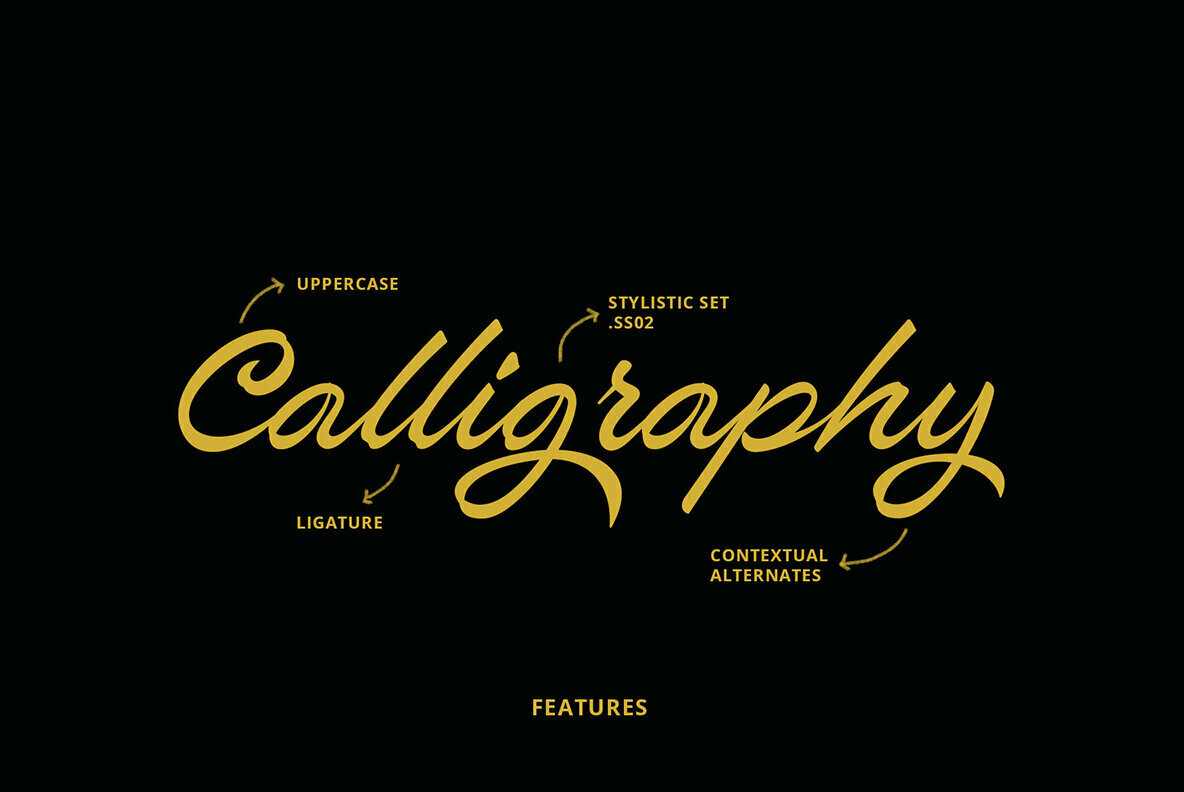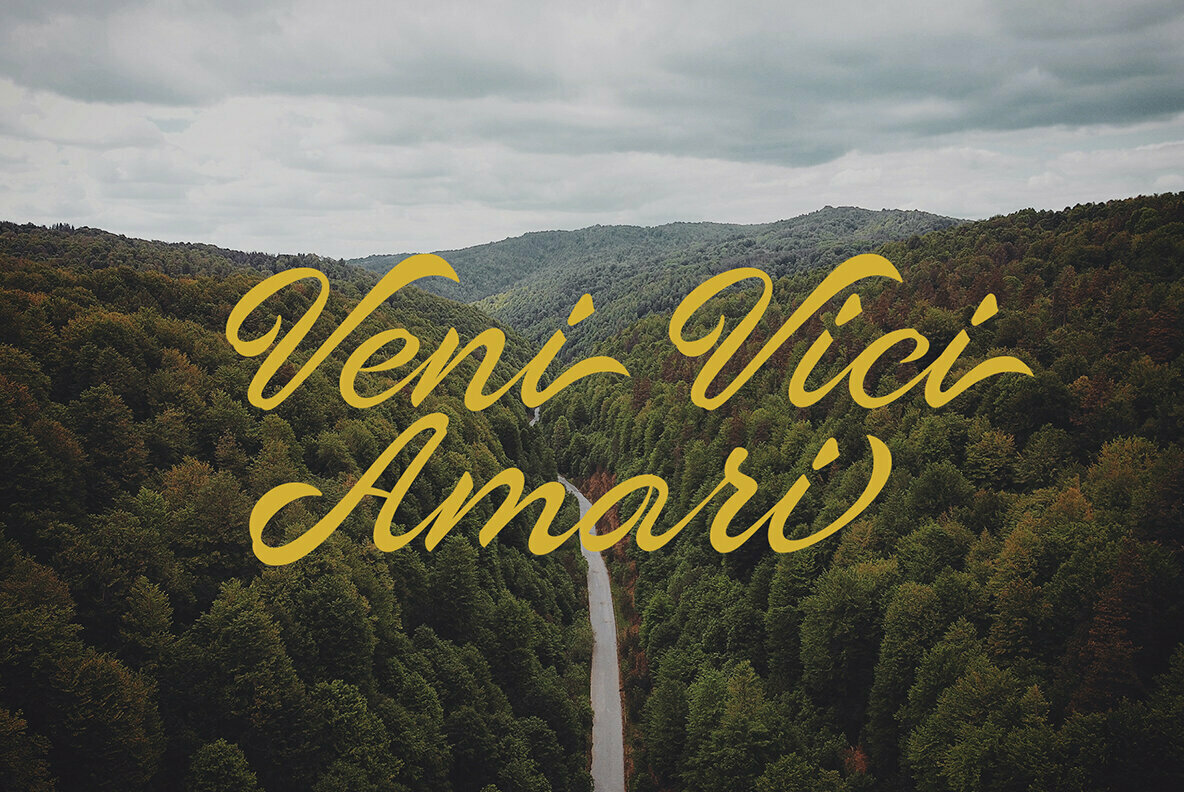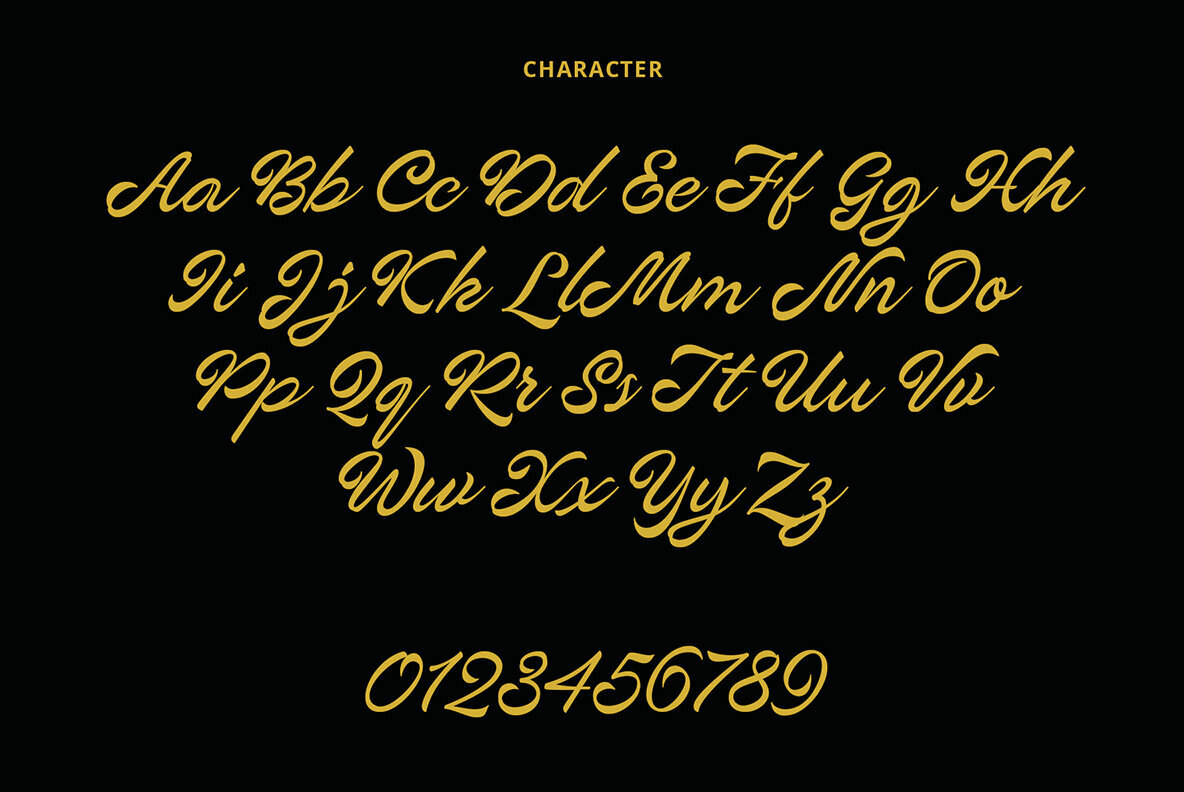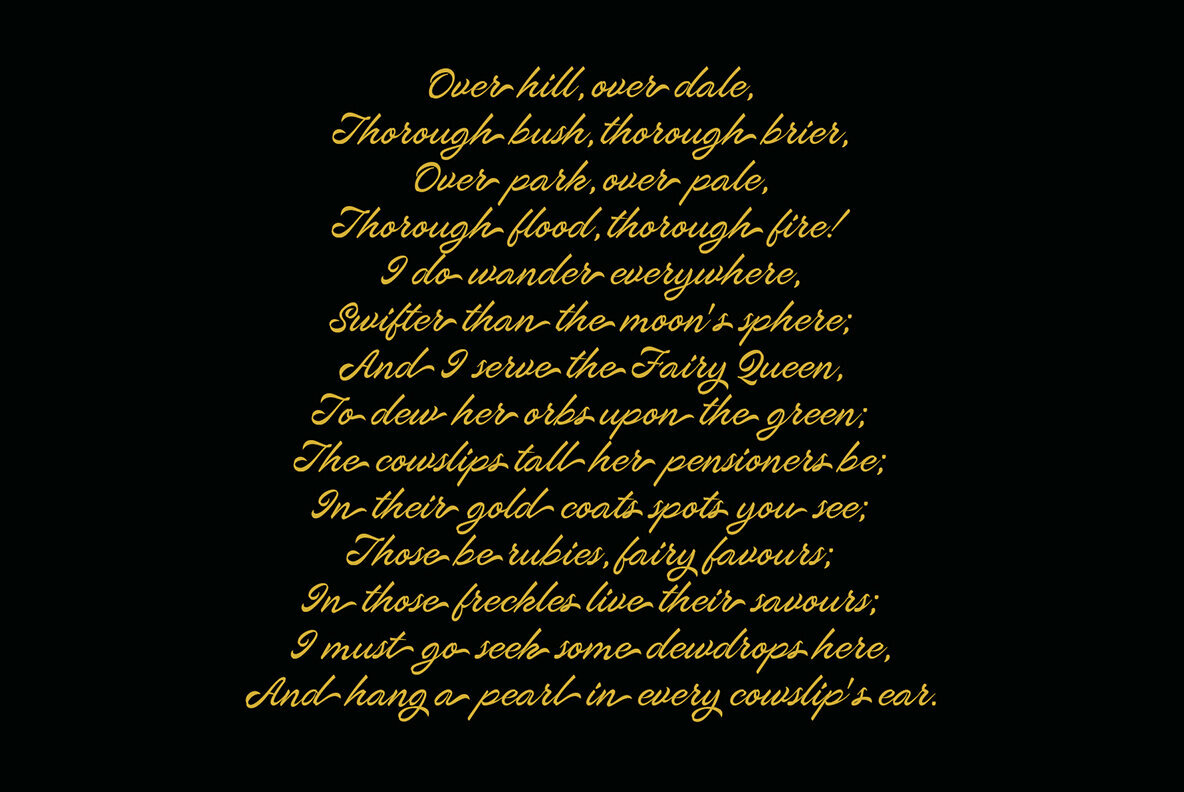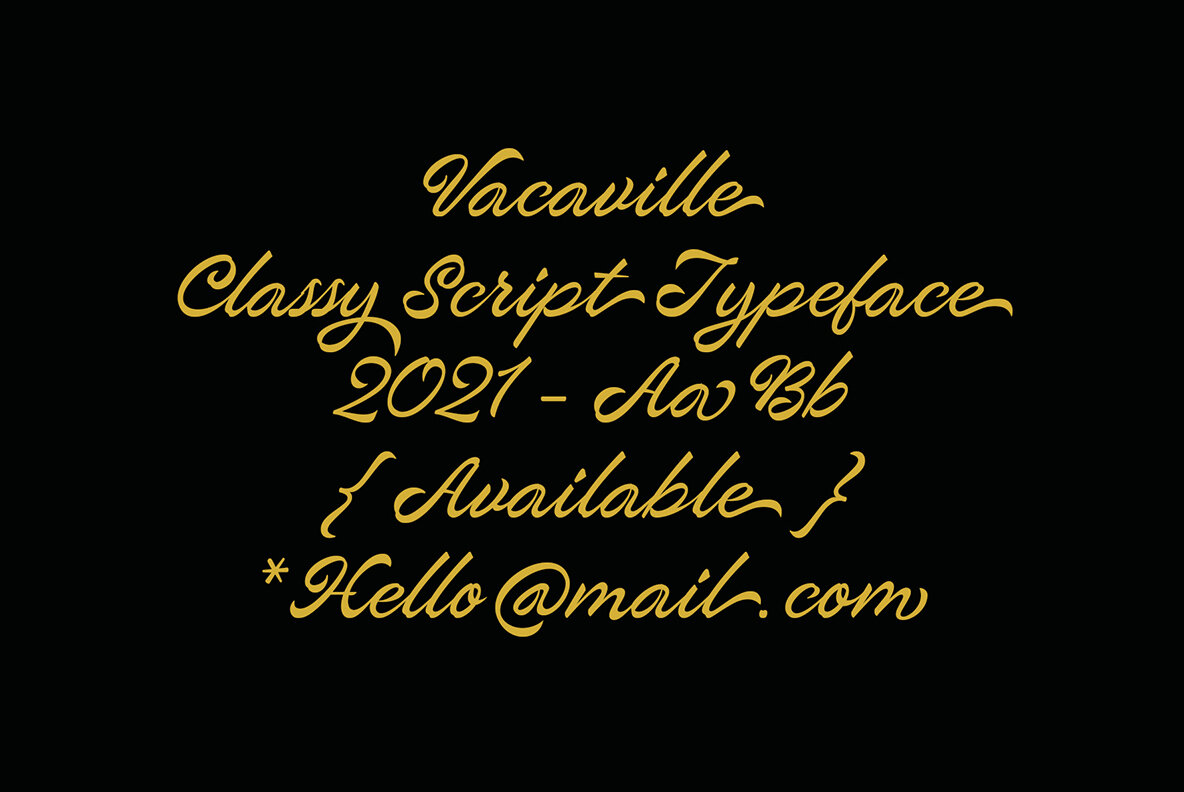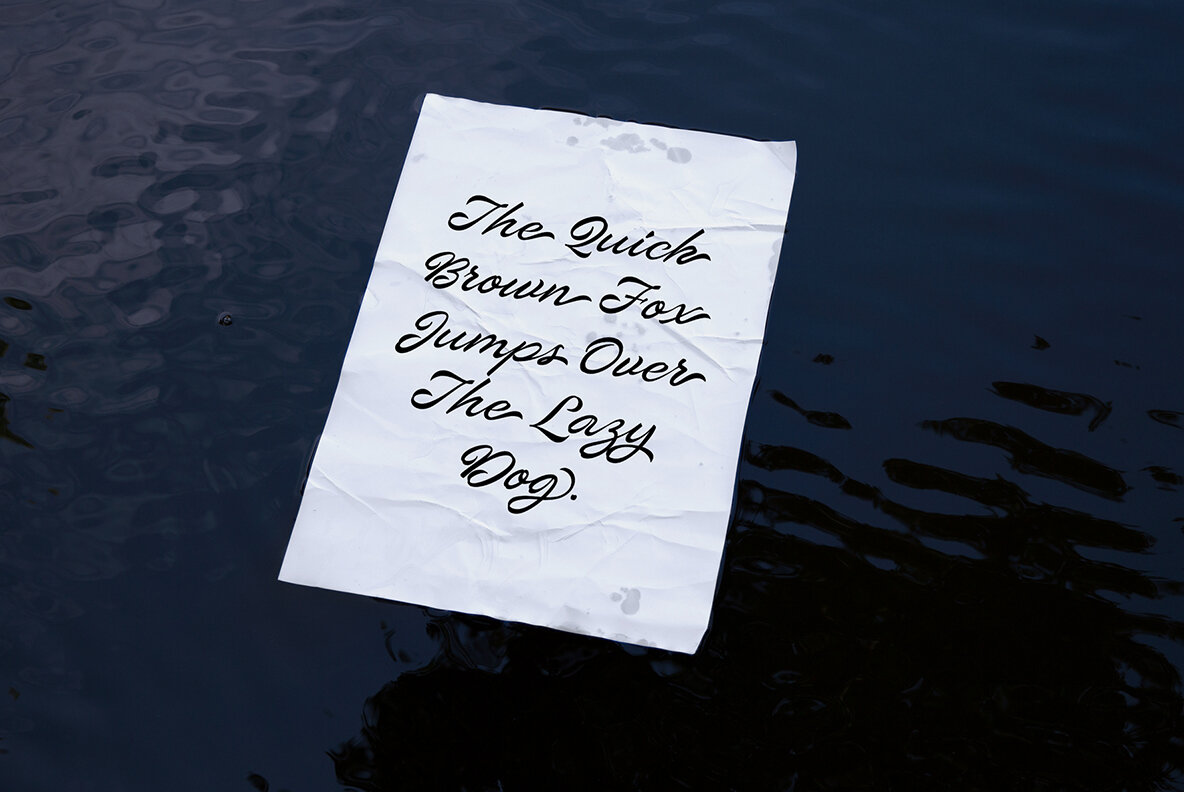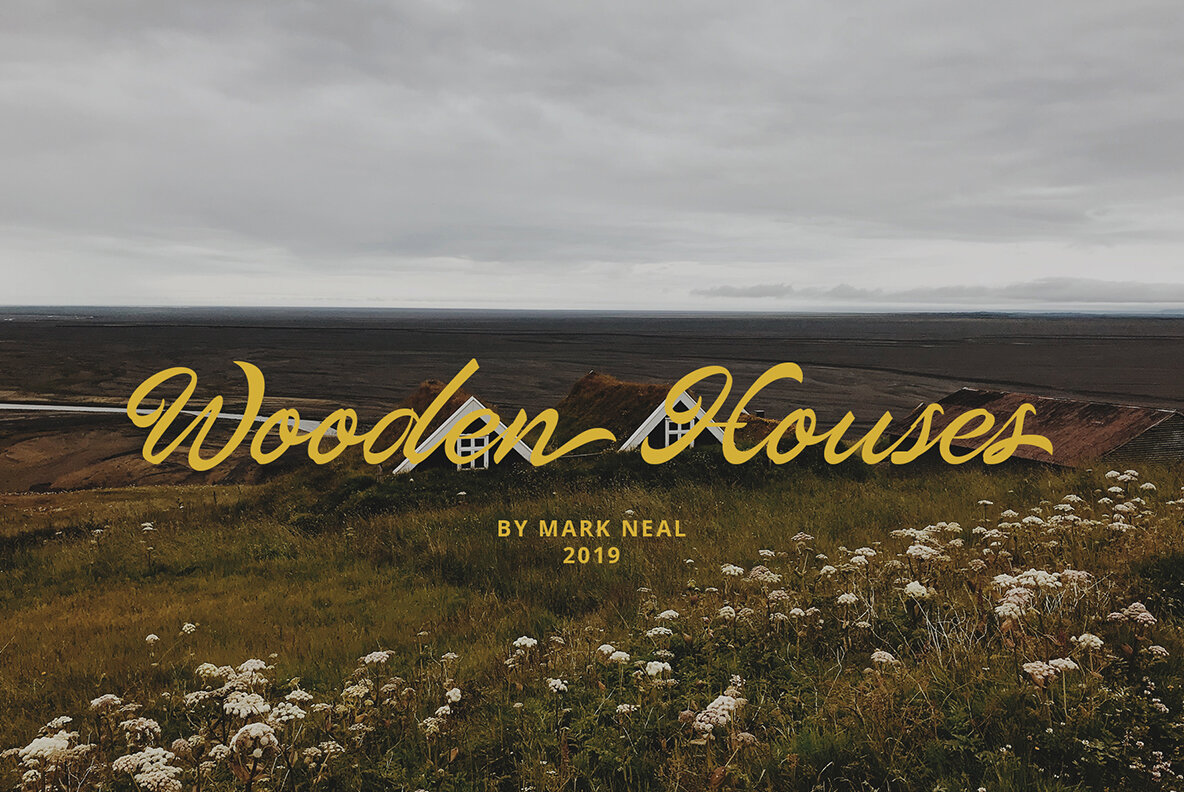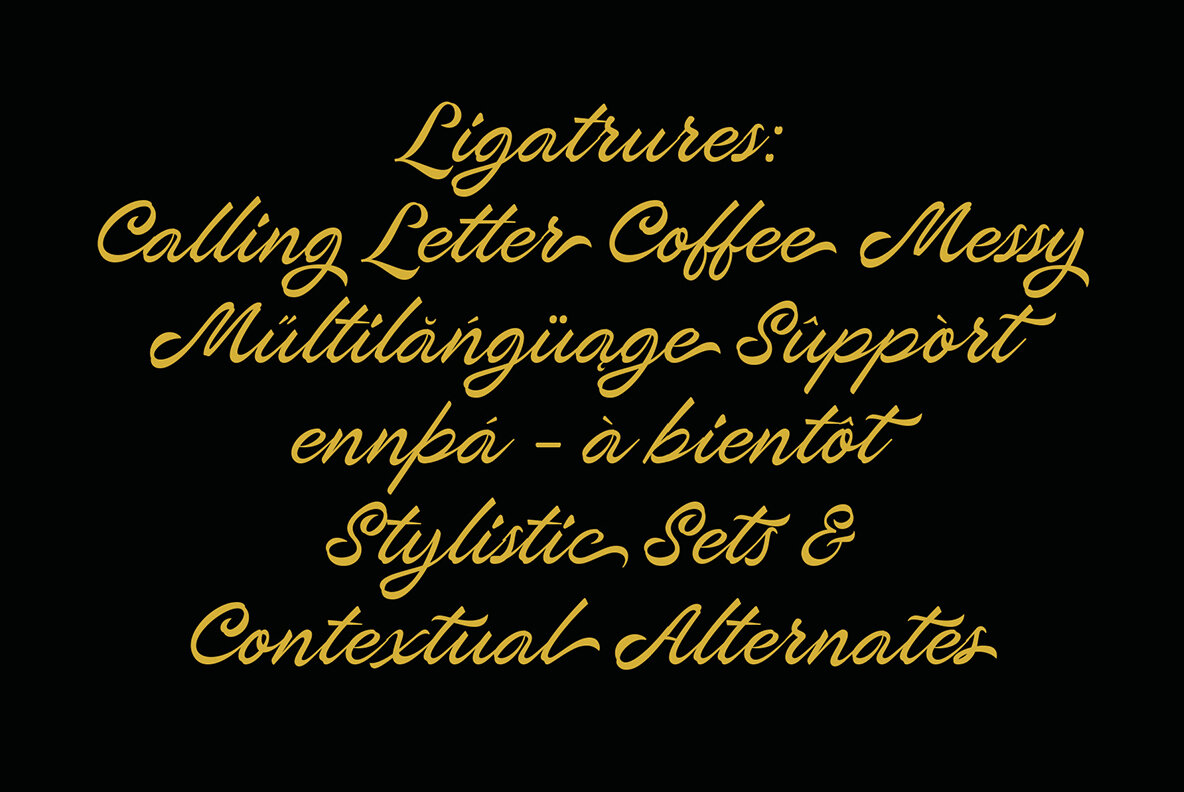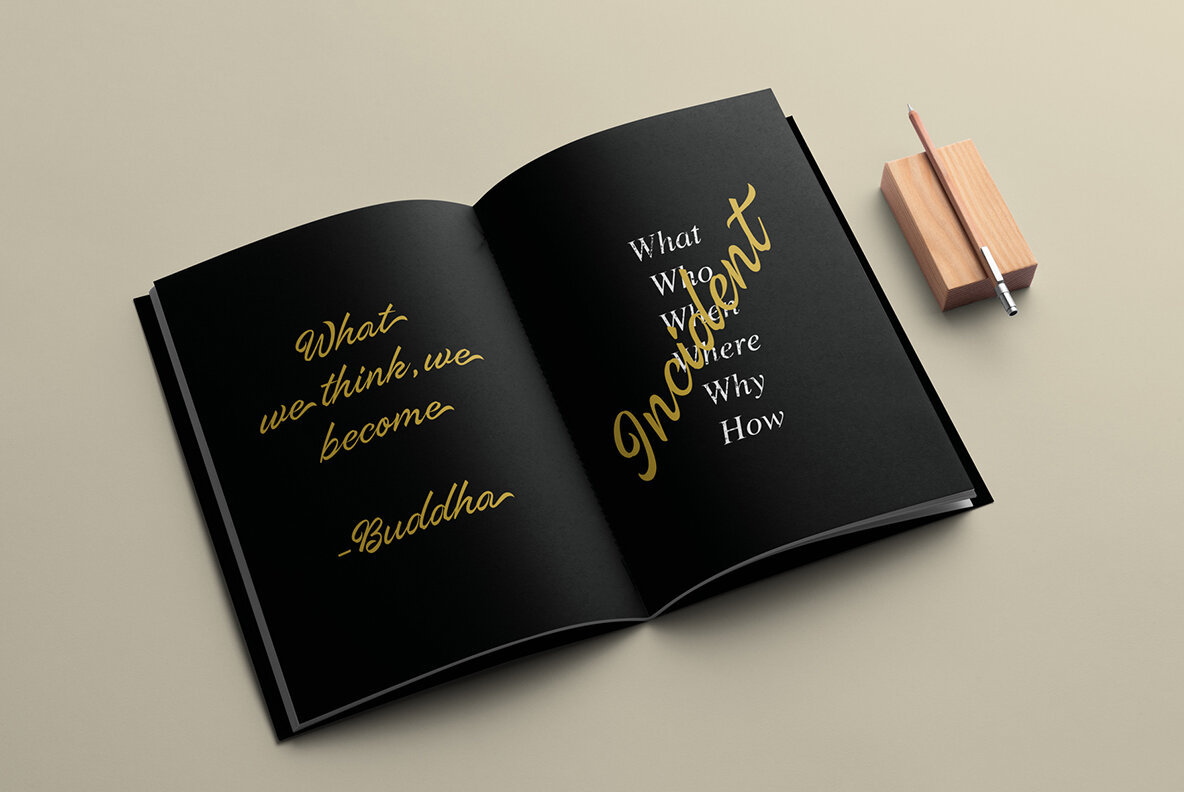
ED Vacaville is a classic styled script font inspired by handwriting with brushes. This font is suitable for your design needs and can be combined with other fonts. besides this font is equipped with ligature, contextual, stylistic set (.ss01 , .ss02 ) and multi-language support.
This font is perfect for your design needs such as branding, logo design, wedding invitations, decorations, and more.